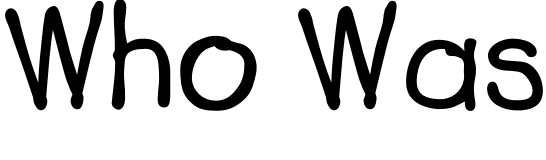
Who Was (book) Font
BiographyWho Was..? A series of illustrated biographies for young readers featuring significant historical figures, including artists, scientists, and world leaders. The Netflix series The Who Was? Show, premiered on May 11, 2018.
Lemonade Bold by Image Club Graphics is the font used for the book series titles. Lemonade by Ty Semaka is a handwritten typeface, that comes in Regular and Bold versions. The other sans serif text on the book cover is Triplex Sans Bold created by Zuzana Licko for Emigre.